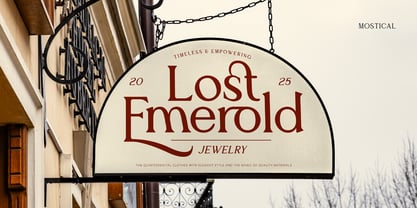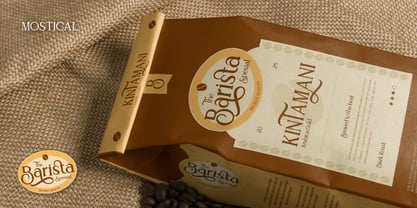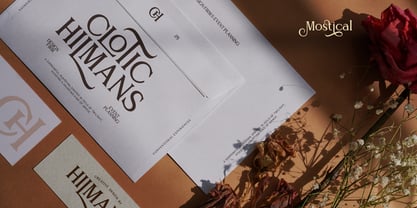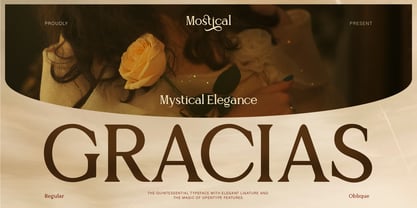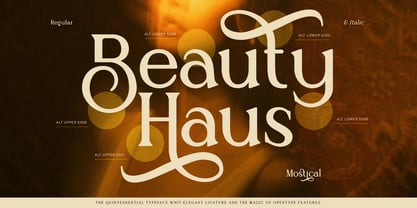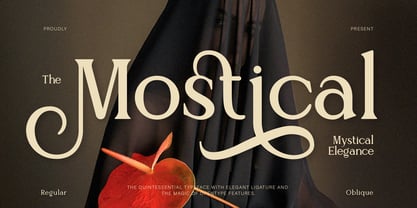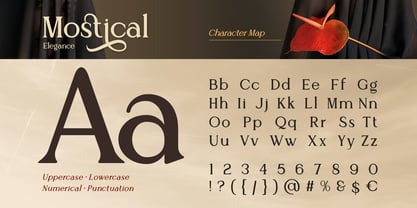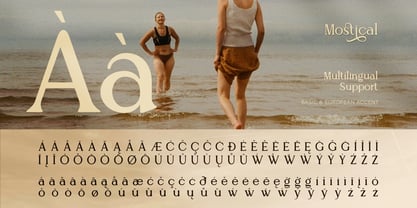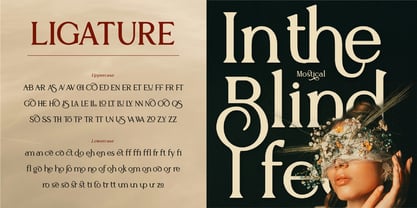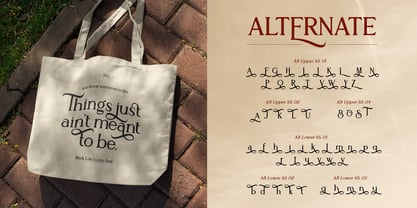
Mostical
by Burntilldead
The Mostical Font Family was designed by Eric Kurniawan and published by Burntilldead. Mostical contains 2 styles and family package options. More about this family
Step into the world with Mostical, an elegant serif font with a touch of magic! Come with 2 styles: Regular and Oblique, make your project more classy and artsy. Also designed with beautiful ligatures and graceful alternates, make it adds a timeless and luxurious touch of any project. Mostical brings a perfect mix of elegance, mystical vibes, and a little bit of drama to your creative projects.
Perfect for luxury branding, fashion logos, editorial layouts, wedding invitations, and even high-end packaging.
Features:
• Uppercase & Lowercase
• Number
• Punctuation
• Alternates
• Ligatures
• Multilingual
• Mostical Characters Map